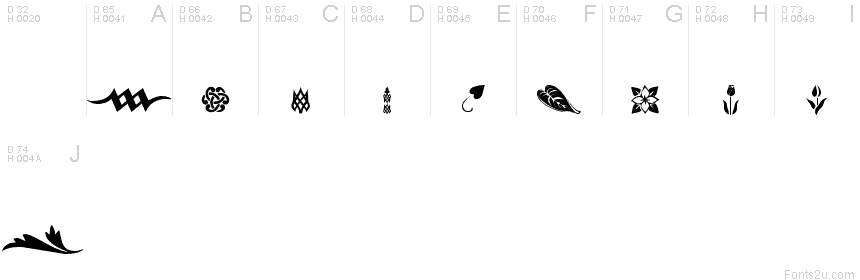
KR Simple Fleur 3
KR Simple Fleur 3 by Kat Rakos is a free dingbat font made of simple floral ornaments and small decorative flourishes. The shapes keep a restrained, hand-drawn feel that suits the "fleur" name without turning ornate or crowded.
KR Simple Fleur 3 works naturally for wedding stationery, invitation borders, scrapbook accents, gift tags, logo embellishments, and divider lines. Its compact botanical details give layout pieces a quick decorative lift without taking over the page.